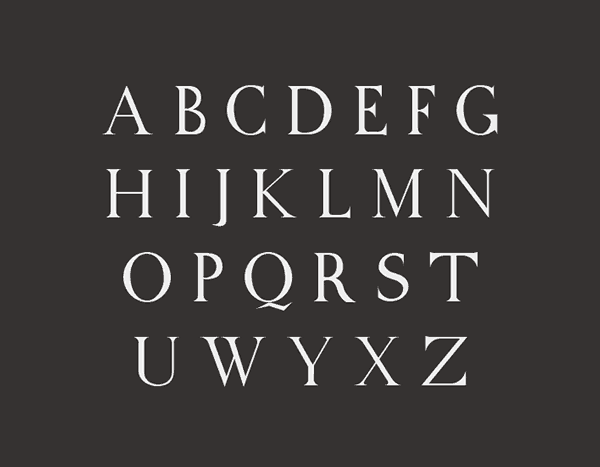
Cathedral: free typeface
Cathedral is a beautiful all-caps serifs typeface indicating transition from ancient Roman to modern Roman. It has vertical axis slightly tilted and ending with dot. Font is free to use both for commercial and noncommercial purposes.